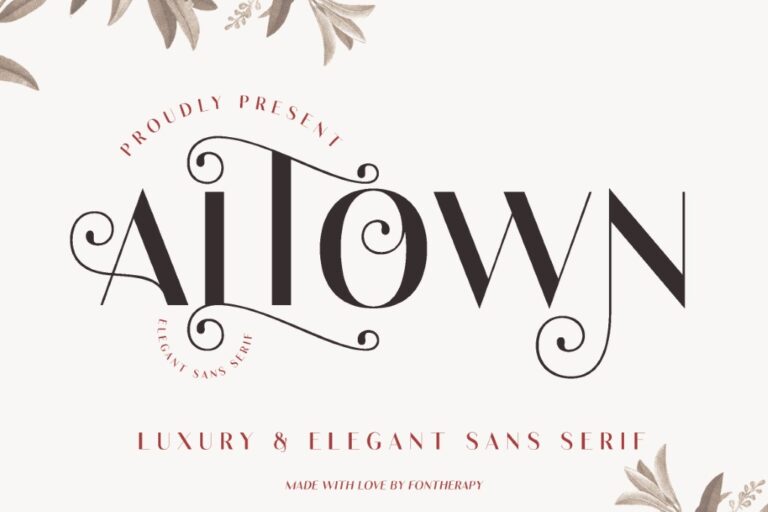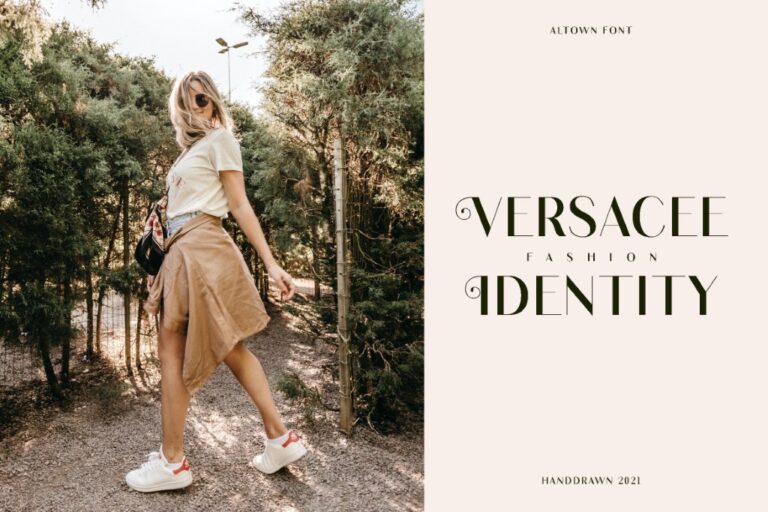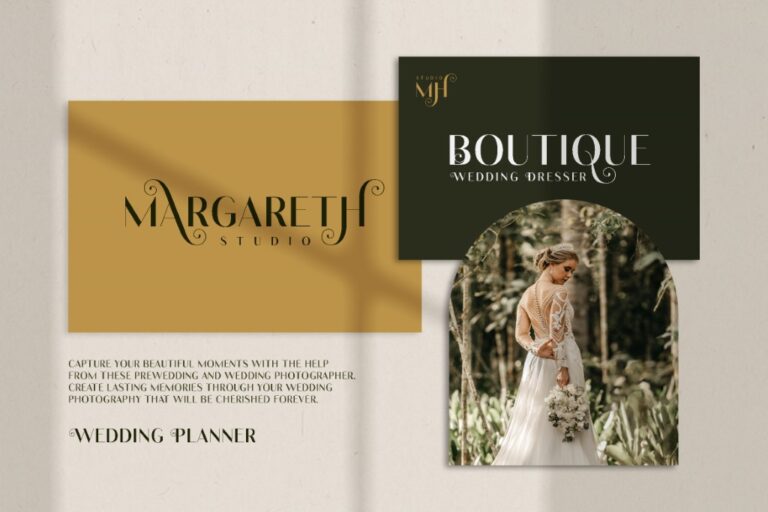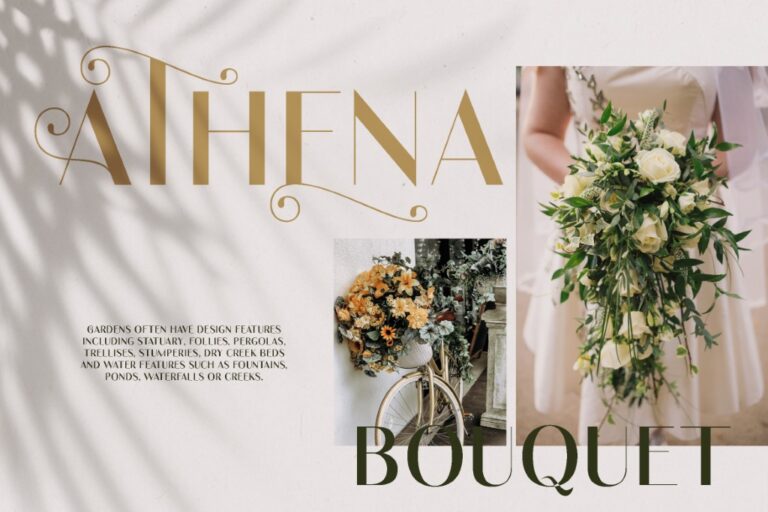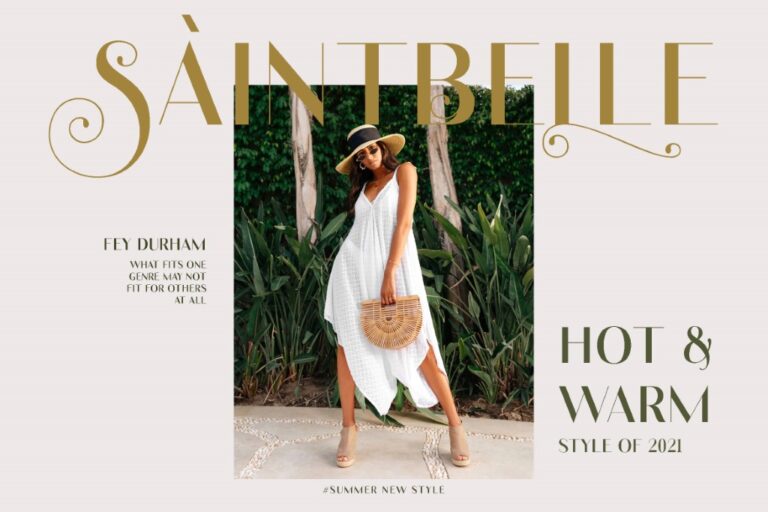
ALTOWN Business Font
Altown is elegant modern sans serif font . It can easily be matched to an incredibly large set of projects for your company, so add it to your creative ideas and notice how it makes them stand out!